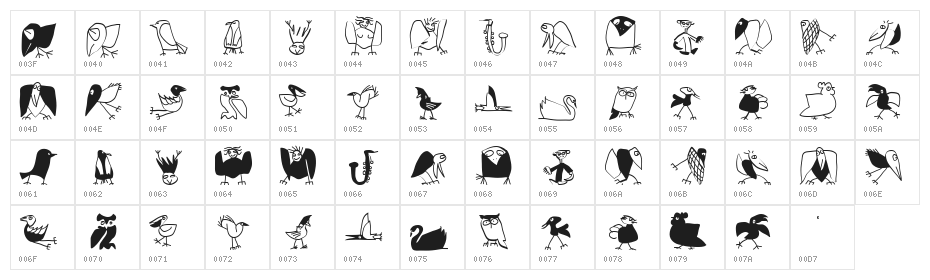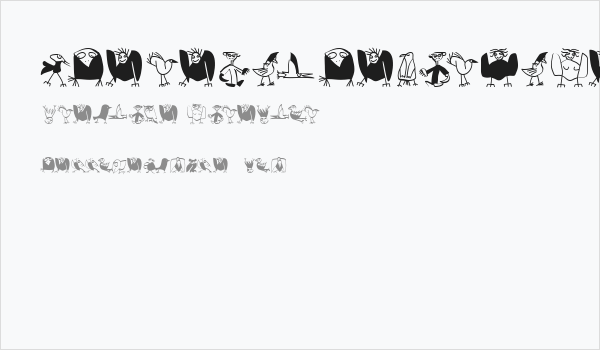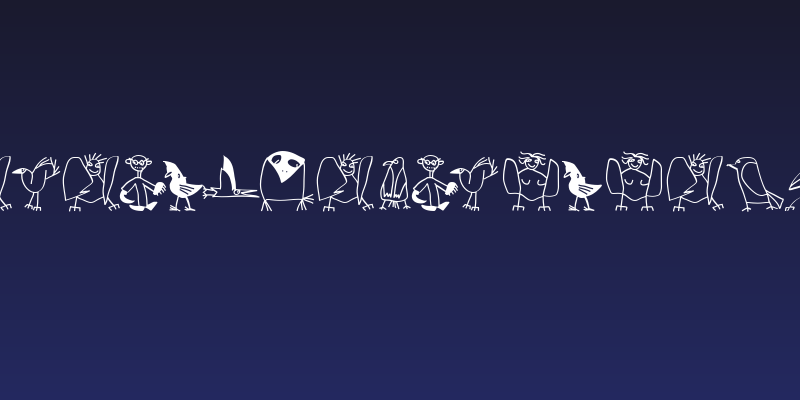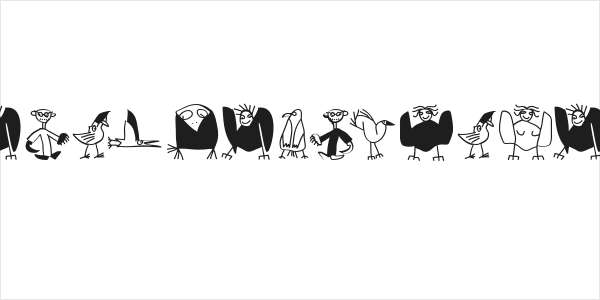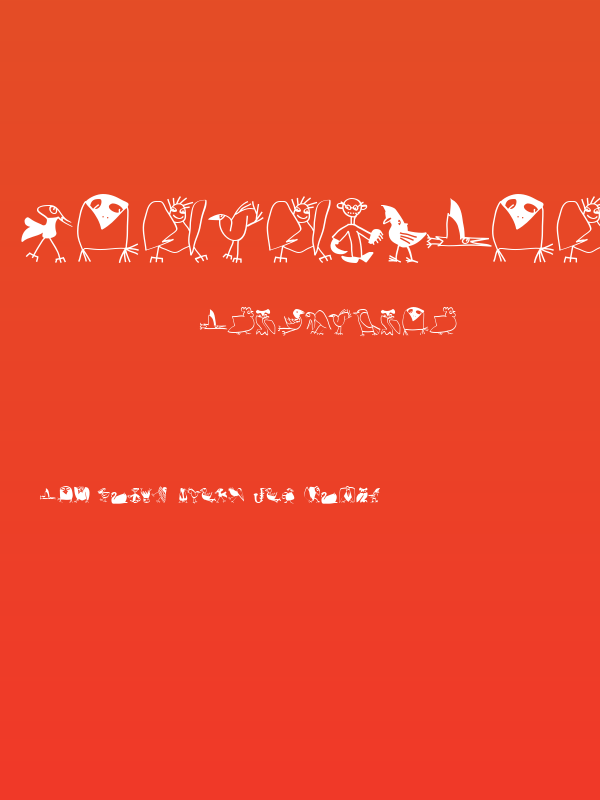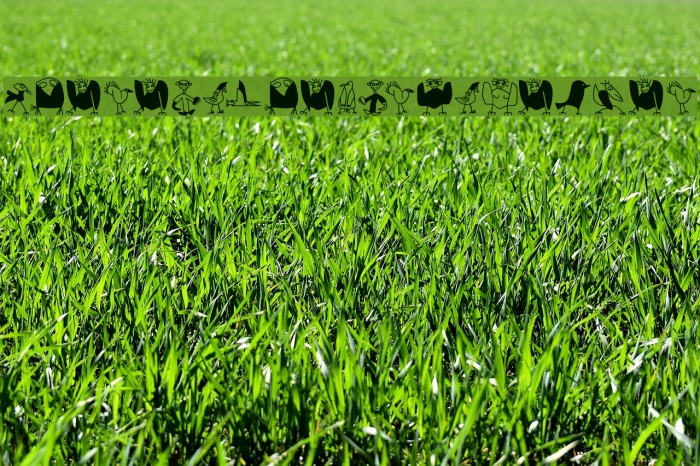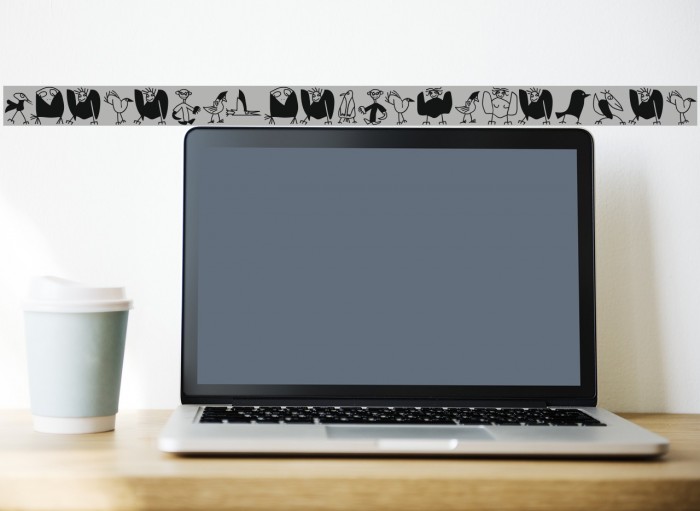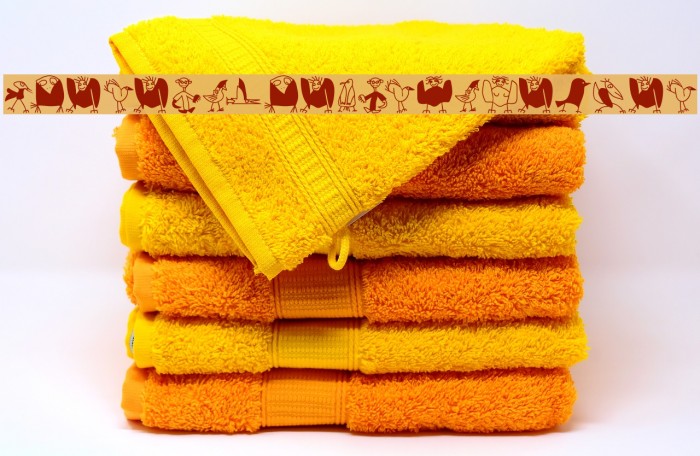
WhereIsTheBirdsDealer Font
This is a whimsical and playful decorative font where each character is represented by a unique bird illustration. The designs are cartoonish, with exaggerated features and humorous expressions, making each letter stand out with its own personality. The font is highly creative, with a focus on entertainment and visual appeal rather than readability. Each bird character varies in style, from simple line drawings to more detailed and filled shapes, providing a diverse visual experience. This font is ideal for projects that require a fun and engaging aesthetic, such as children's books, playful branding, or creative event invitations.
| Proposed Projects | Ideal for children's books, playful branding, creative invitations, and any project needing a fun aesthetic. |